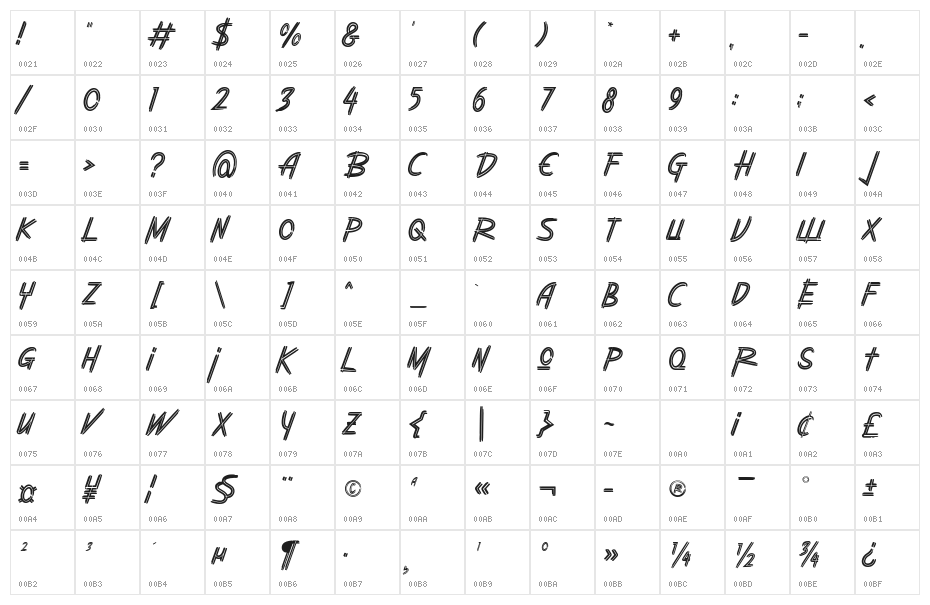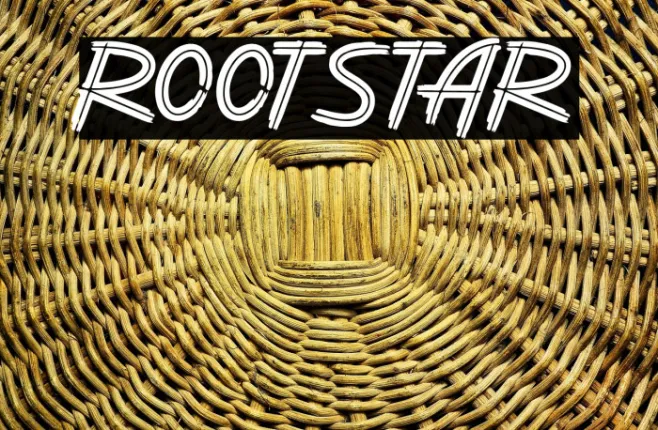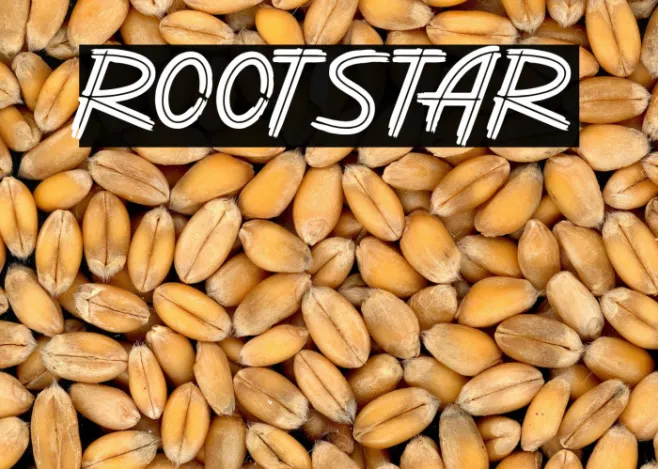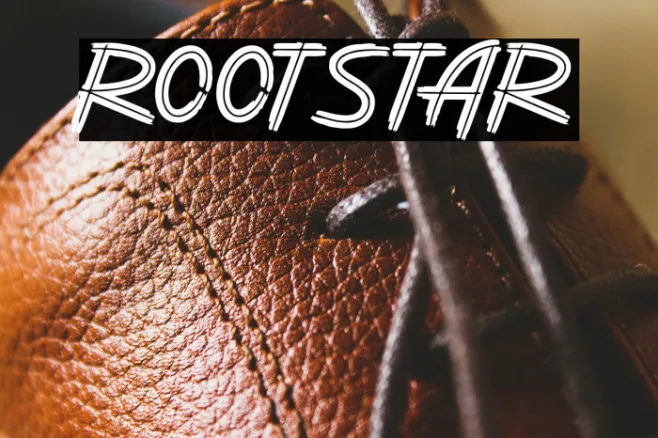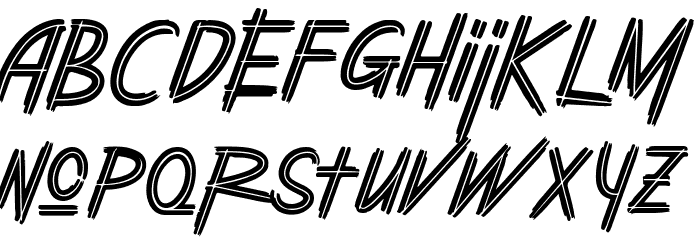
ROOTSTAR Font
ROOTSTAR Description
This font features a dynamic and energetic style with a hand-drawn appearance. The characters are bold and slightly slanted, giving a sense of movement and urgency. The strokes are thick with a rough, sketch-like quality, adding a casual and informal touch. The uppercase and lowercase letters maintain a consistent style, with the uppercase being more prominent. Numbers and special characters are designed to match the overall aesthetic, ensuring a cohesive look across all text. This font is ideal for projects that require a bold statement or a creative flair.
| Overall Style | Modern, Casual |
| Proposed Projects | Ideal for posters, logos, branding materials, and creative projects that require a bold and informal touch. |